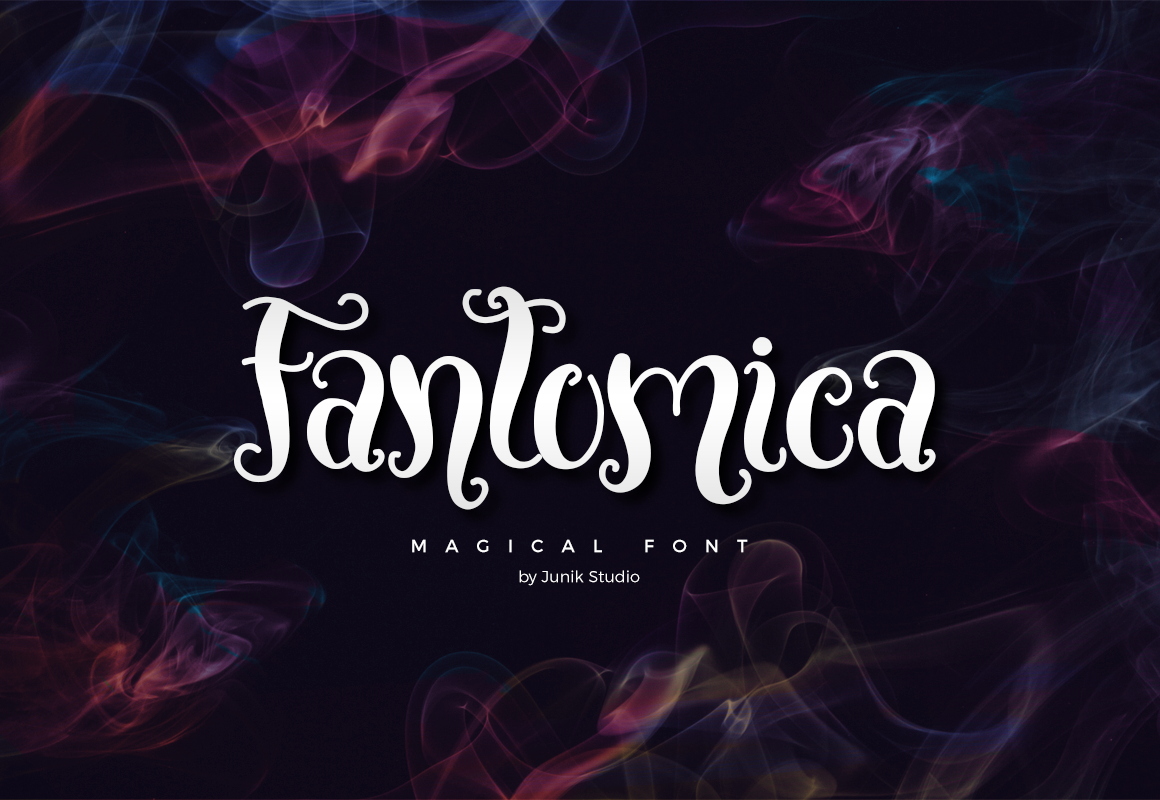
Fantomica - Magical Font
Fantomica is a magical font that includes:
- Lowecase and uppercase letters
- Latin extended characters
- Basic currencies, punctations, and numbers
- PUA encoded extra characters
Which international languges are supported?
The latin extended characters included in Fantomica are those that are used in the following languages: Albanian, Azerbaijani, Bosnian, Catalan, Croatian, Czech, Dutch, English, Esperanto, Estonian, Filipino, Finnish, French, German, Hungarian, Icelandic, Italian, Latvian, Lithuanian, Livonian, Maltese, Polish, Portuguese, Romanian, Slovak, Slovenian, Spanish, Swedish, Turkmen, Welsh.